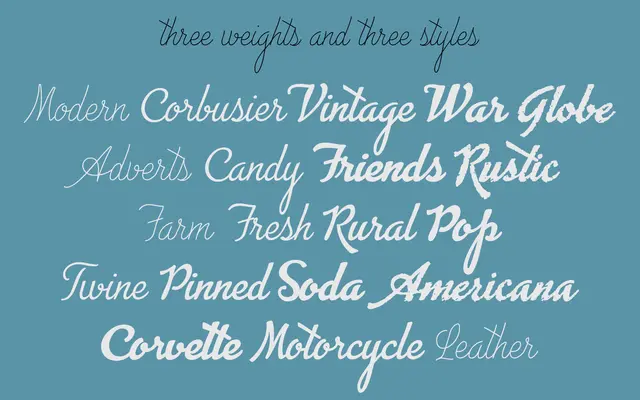
Advertising Script
Zetafonts · Cosimo Lorenzo Pancini, Matteo Chiti, Luca Chiti, Andrea Tartarelli · 2016
A brush script drawn from a 1947 Speedball calligraphy manual sample, reworked into four weights plus a rough variant for vintage display and packaging work.
Based on a handmade sample by calligrapher Ross Frederic George, published in the Speedball 1947 Textbook Manual, the family was fully redrawn and extended by the Zetafonts Masterclass 2016 team. Five styles cover Monoline through Bold plus the rough-textured Chupito Brownie cut, with OpenType support for ligatures, contextual alternates and ending swashes accessed via underscore sequences. The 421-glyph set covers 188 Latin-script languages, making it practical for European packaging and period advertising work.
A brush script with roots in mid-century American calligraphy, offering multiple weights and a monoline variant typical of the display script category.